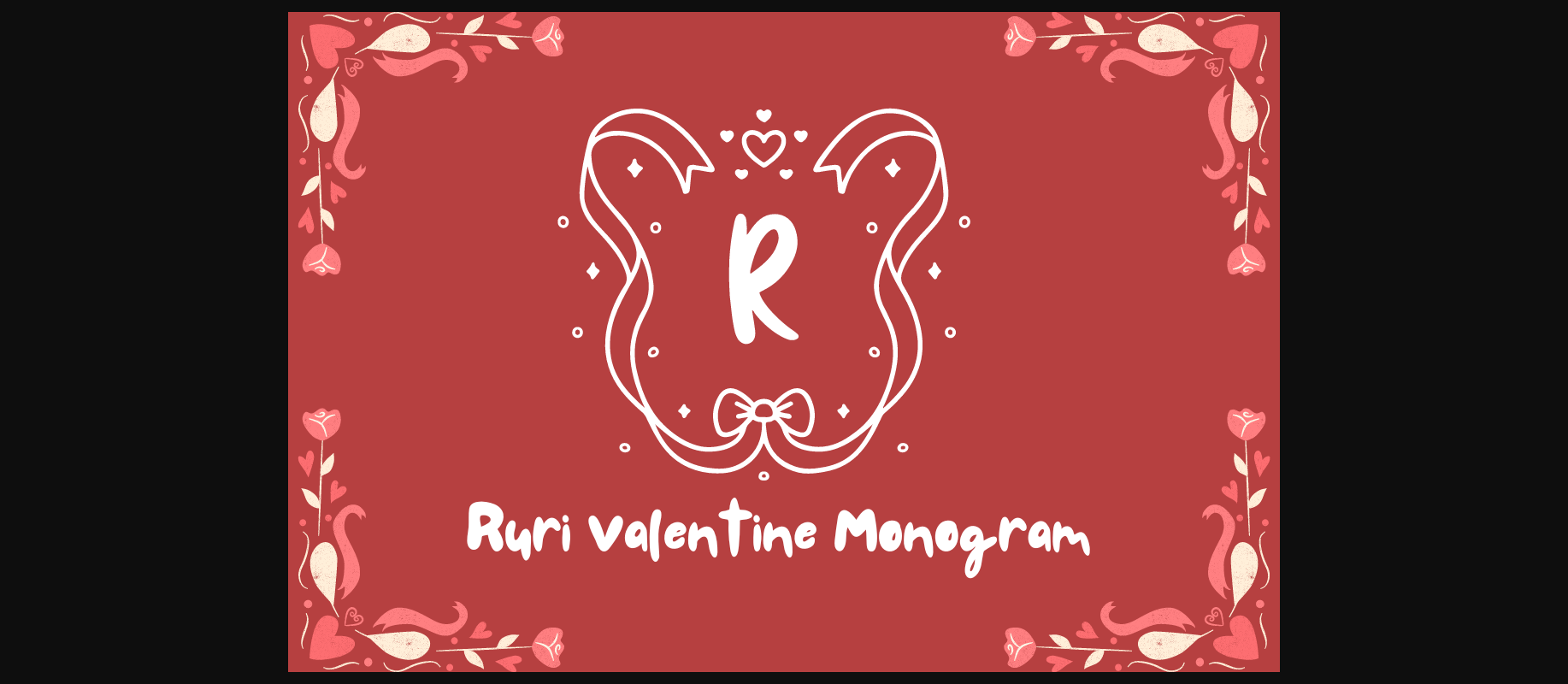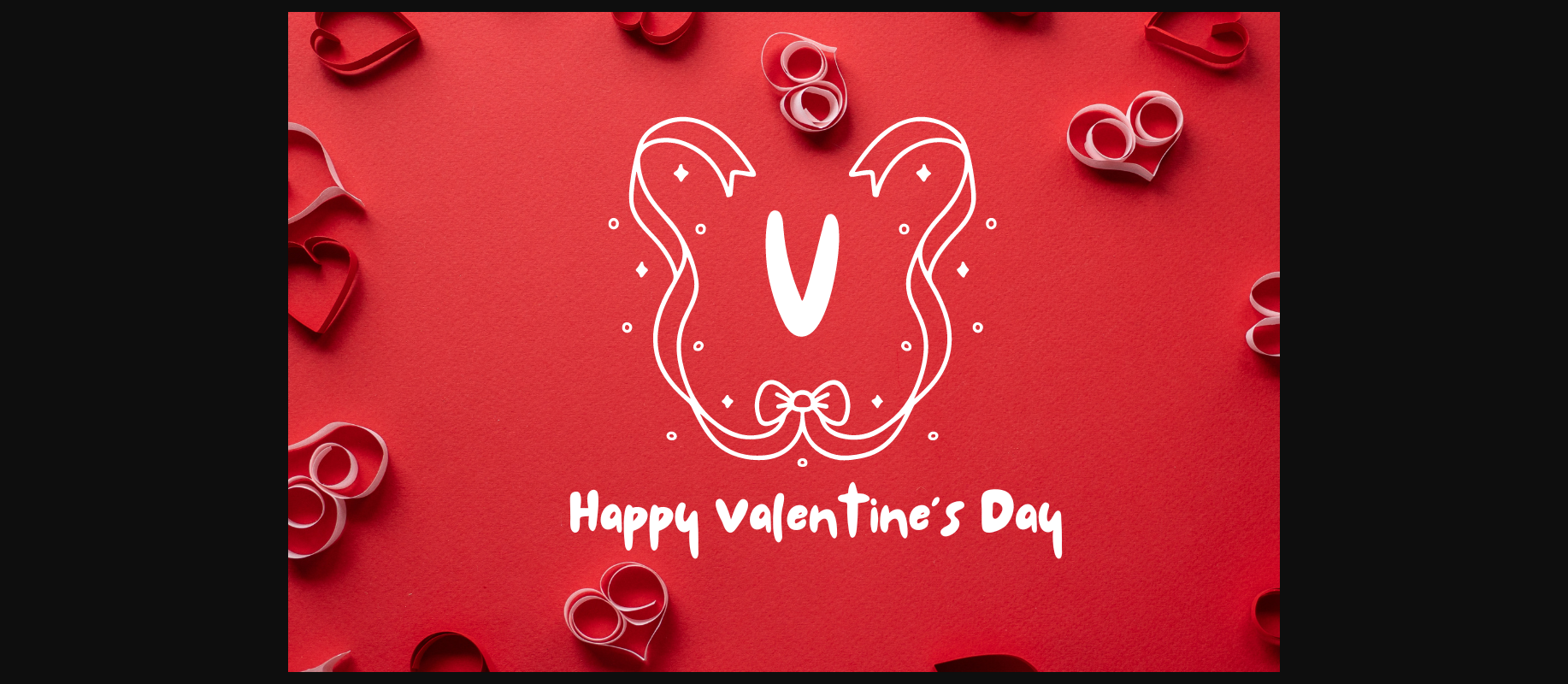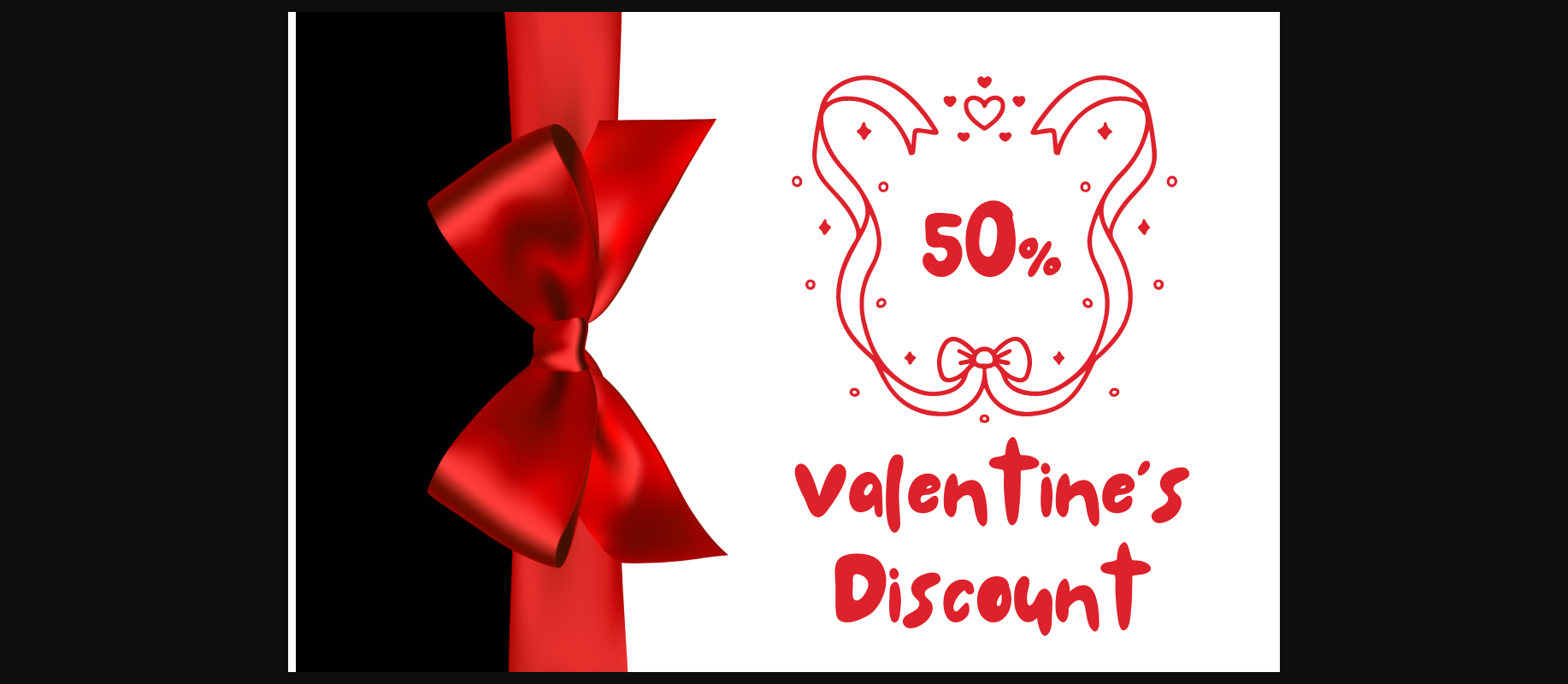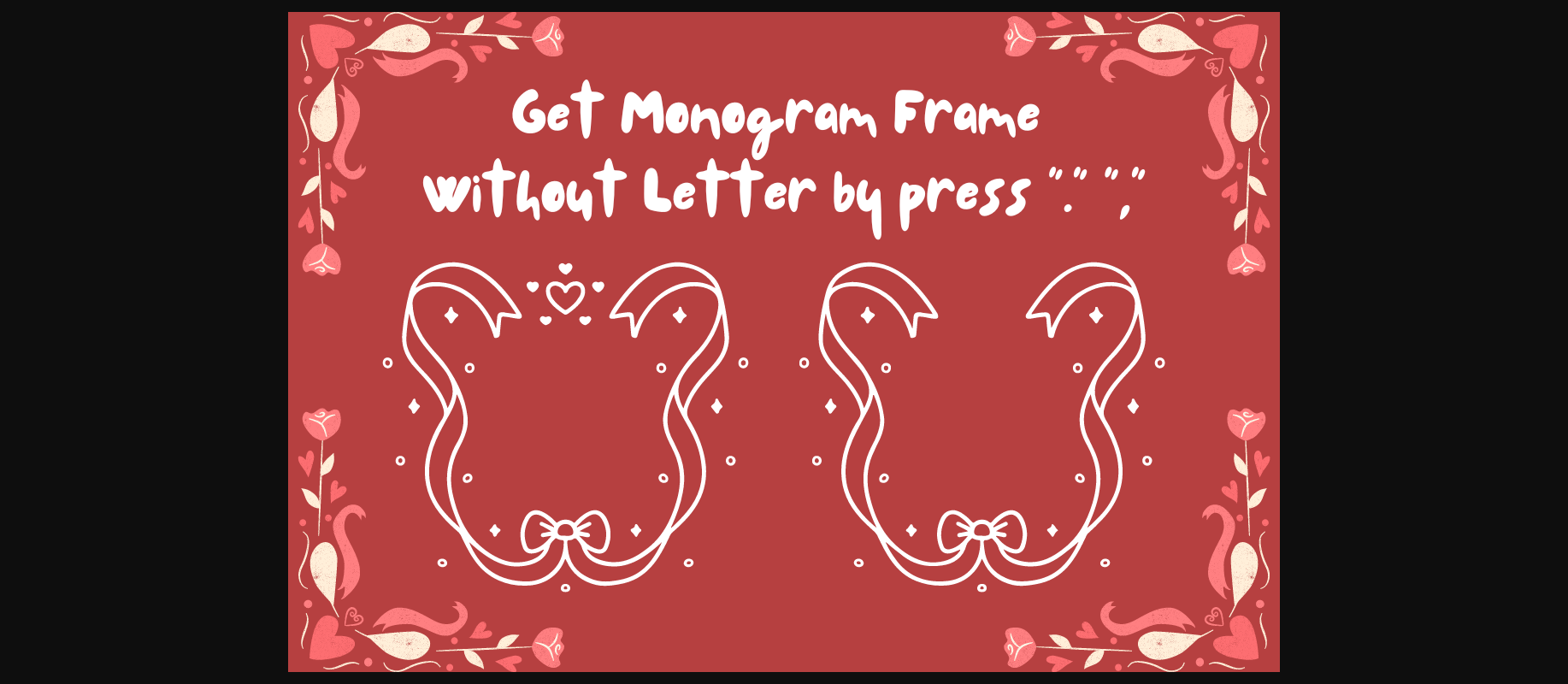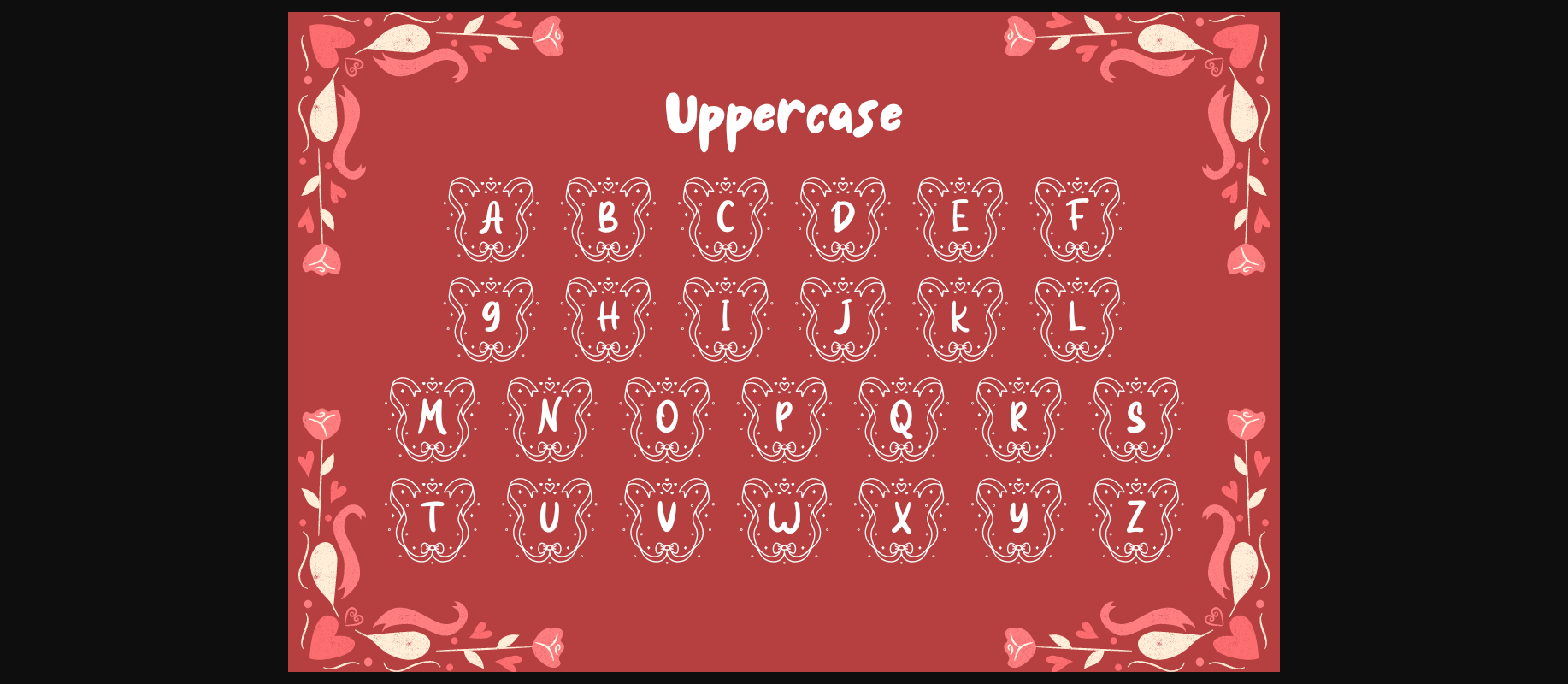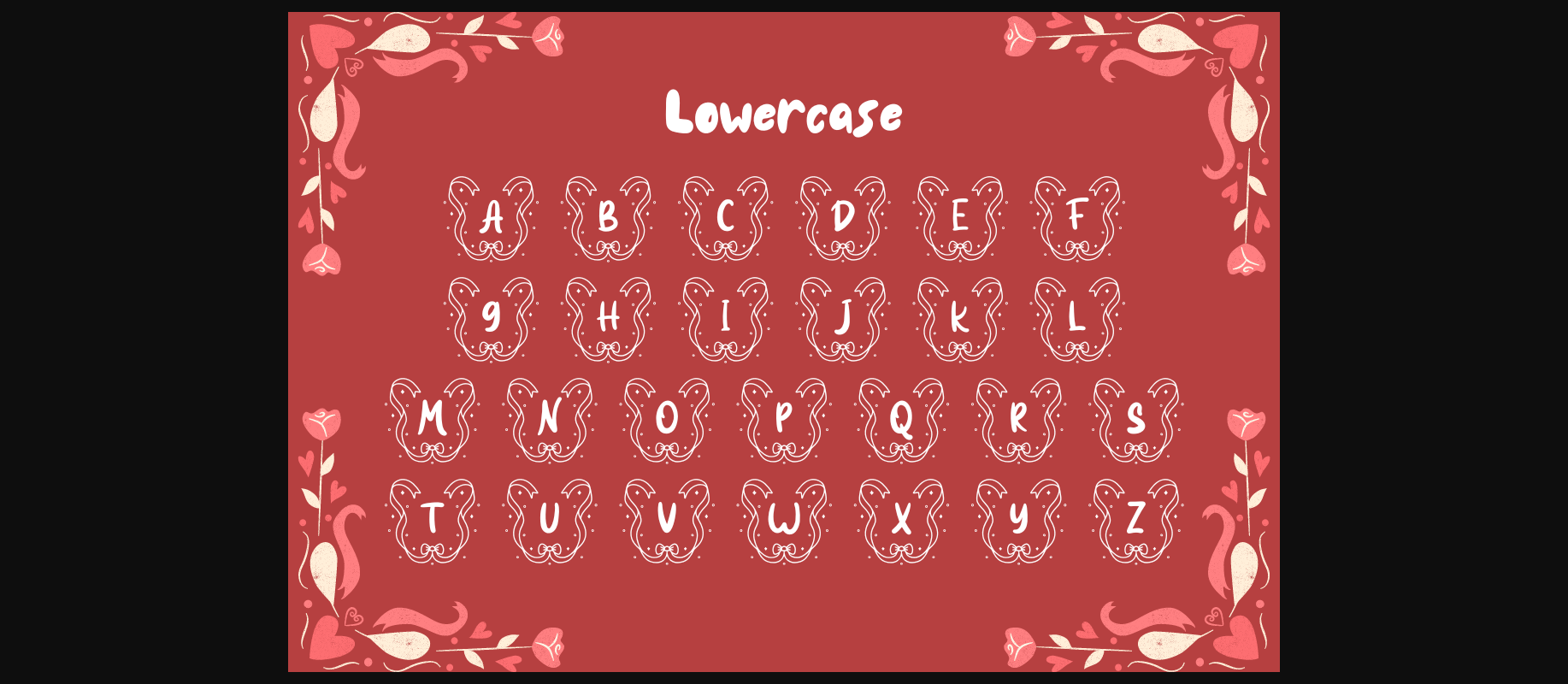
About Ruri Valentine Monogram Font
Ruri Valentine Monogram is a ribbon decorative font. Fall in love with beautiful lovely designs for your special occasions, business designs, logos, branding, social media posts, and wedding cards.
Comes in 2 styles.
Just simply change between uppercase and lowercase to see the different styles!